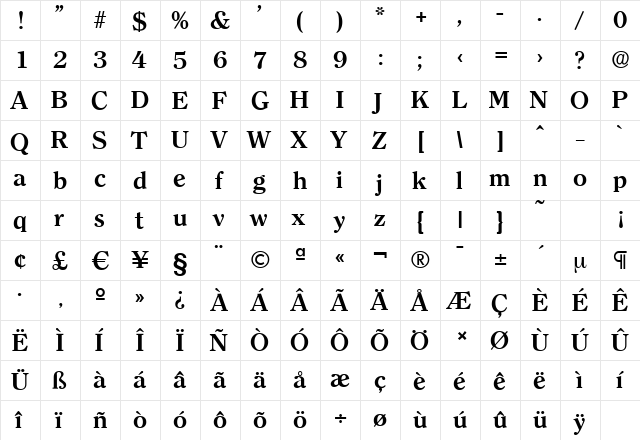
ClearfaceSerial Bold
Design Context for ClearfaceSerial Typeface
ClearfaceSerial is a composed and adaptable typeface that performs quietly and consistently across a wide range of design contexts. Its bold stroke weight gives it real presence on the page.